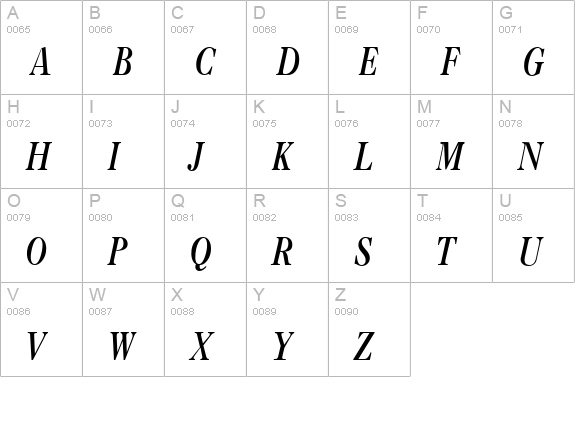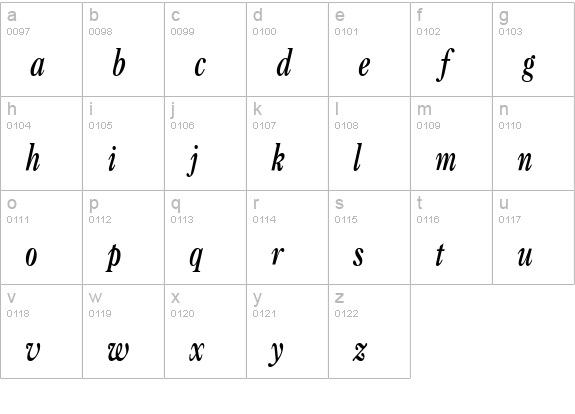
CasqueCondensed Bold Italic Font Details
CasqueCondensed Bold Italic is a strong, high-contrast, italic variant in the CasqueCondensed typeface family \xE2\x80\x94 well suited to headlines, attention-grabbing titles, and strong calls-to-action.
CasqueCondensed Bold Italic font is a striking and versatile typeface that exudes modernity and sophistication. Its bold and italicized design commands attention and adds a touch of elegance to any project. The sleek and condensed letterforms make this font ideal for headlines, titles, and other display purposes where impact is desired. What sets CasqueCondensed Bold Italic font apart is not only its bold and dynamic appearance, but also its readability and legibility. The carefully crafted design ensures that each character is distinct and easily recognizable, even at smaller sizes. Whether you're designing a poster, logo, or website, CasqueCondensed Bold Italic font is sure to make a statement. And the best part? It's completely free to download at FontsMarket.com, making it accessible to anyone looking to elevate their design projects with a touch of sophistication and style. Download CasqueCondensed Bold Italic font today and unleash your creativity with this stunning typeface.